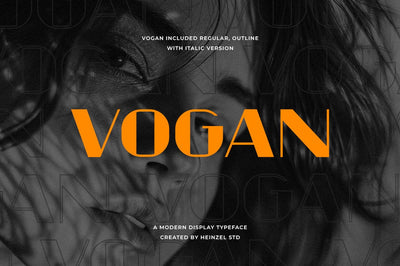
Vogan Typeface Font
Vogan is a modern typeface font. Fall for its ravishing style and use it to create gorgeous logos, headlines, branding, wedding invitations, beautiful stationary art, eye-catching social media posts, and much more!
Vogan Features:
- Vogan Regular, Outline and Italic Version
- Uppercase, Lowercase, Numerals, and more punctuations.
- Multilingual support for various languages